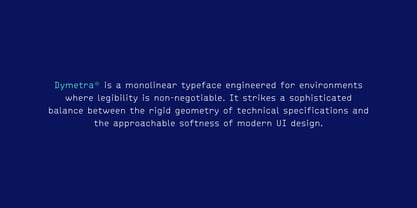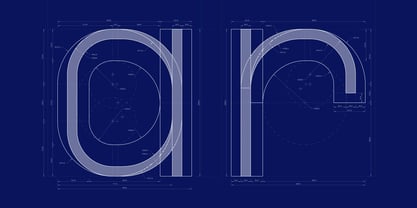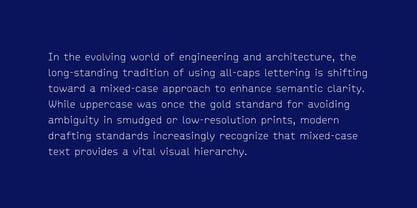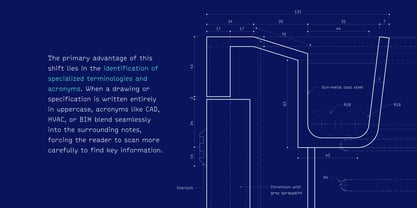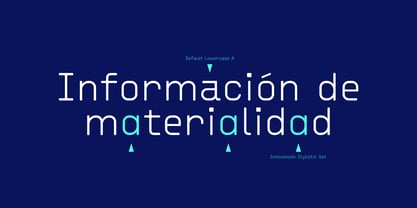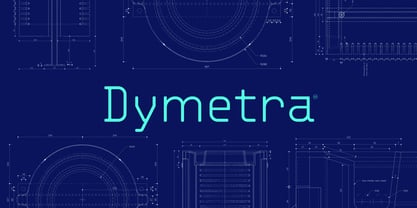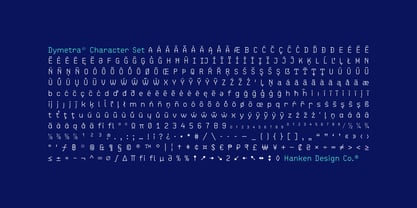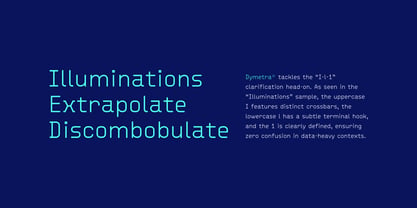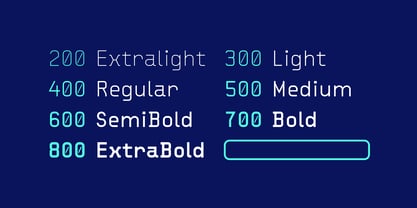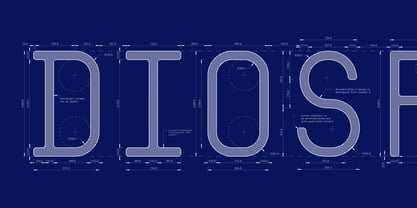
Dymetra
by Hanken Design Co.
The Dymetra Font Family was designed by Alfredo Marco Pradil and published by Hanken Design Co.. Dymetra contains 7 styles and family package options.
Dymetra is a high-precision, monolinear typeface meticulously engineered for high-stakes professional environments where absolute legibility is non-negotiable. Drawing its structural DNA from the uncompromising world of metrology and orthographic blueprints, it strikes a sophisticated, calculated balance between the rigid, industrial geometry of technical specifications and the approachable, organic softness required for modern user interface design. Every glyph is precisely calibrated to maintain its visual integrity across varying digital resolutions and large-scale physical applications, making it the definitive choice for architects, aerospace engineers, and digital innovators who require a font that communicates with both scientific authority and contemporary aesthetic warmth. By blending the mathematical rigor of a datum line with the fluid accessibility of a consumer-facing app, Dymetra ensures that complex data remains clear, readable, and visually engaging in any design framework.
Designers: Alfredo Marco Pradil
Publisher: Hanken Design Co.
Foundry: Hanken Design Co.
Founded in 2010 by Alfredo Marco Pradil, a visionary typographer with a passion for merging artistry and utility, Hanken Design Co.® has become a globally recognized studio dedicated to crafting meticulously engineered, high-quality typefaces. Serving individuals, institutions, and Fortune 500 brands alike, the studio balances aesthetic elegance with functional adaptability, ensuring each font family performs flawlessly across digital platforms, print media, and immersive branding campaigns. Trusted by industry leaders in tech, luxury, and publishing—as well as elite creative agencies seeking to amplify brand narratives—Hanken’s designs are celebrated for their precision, versatility, and ability to elevate visual identities.